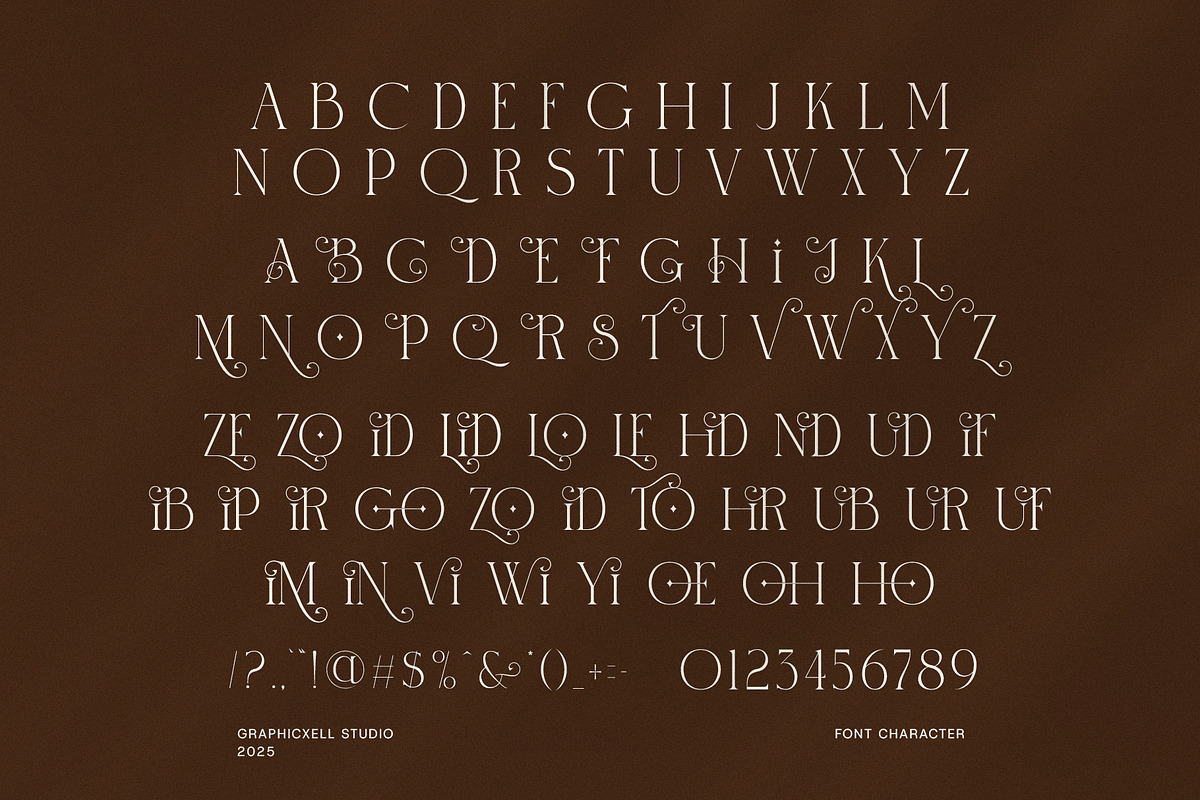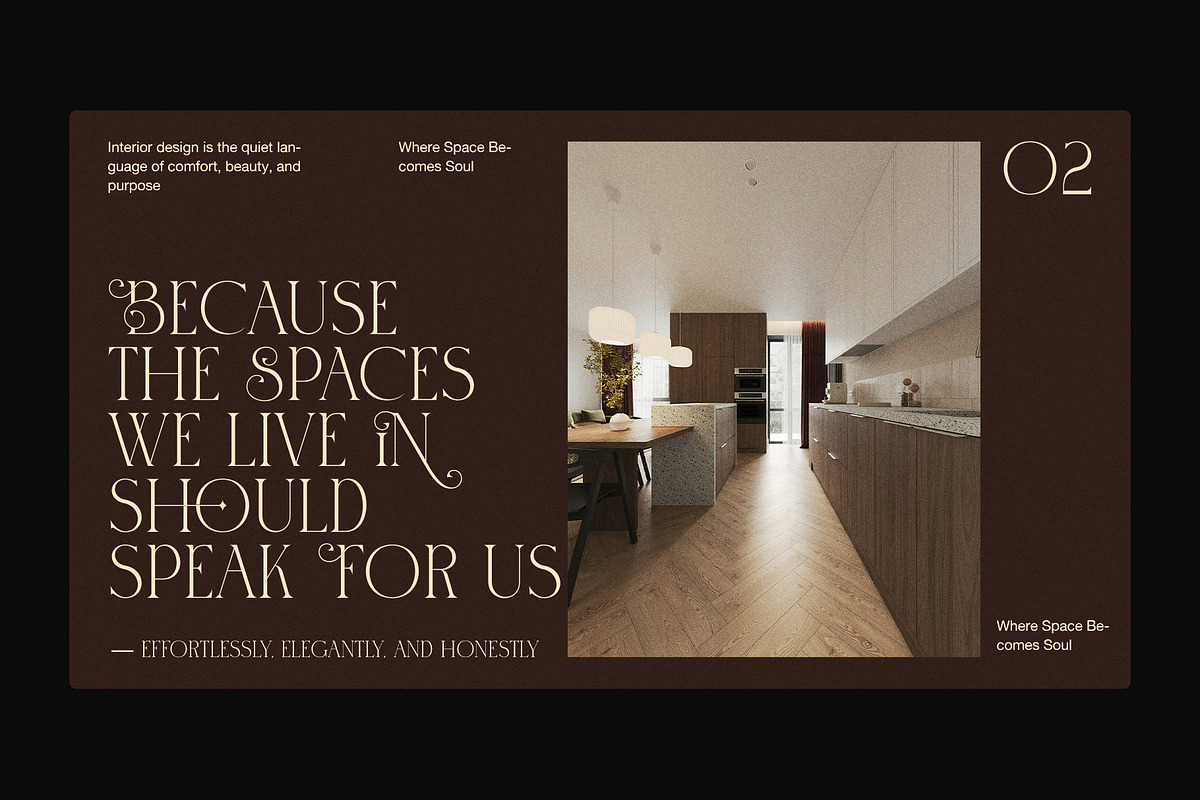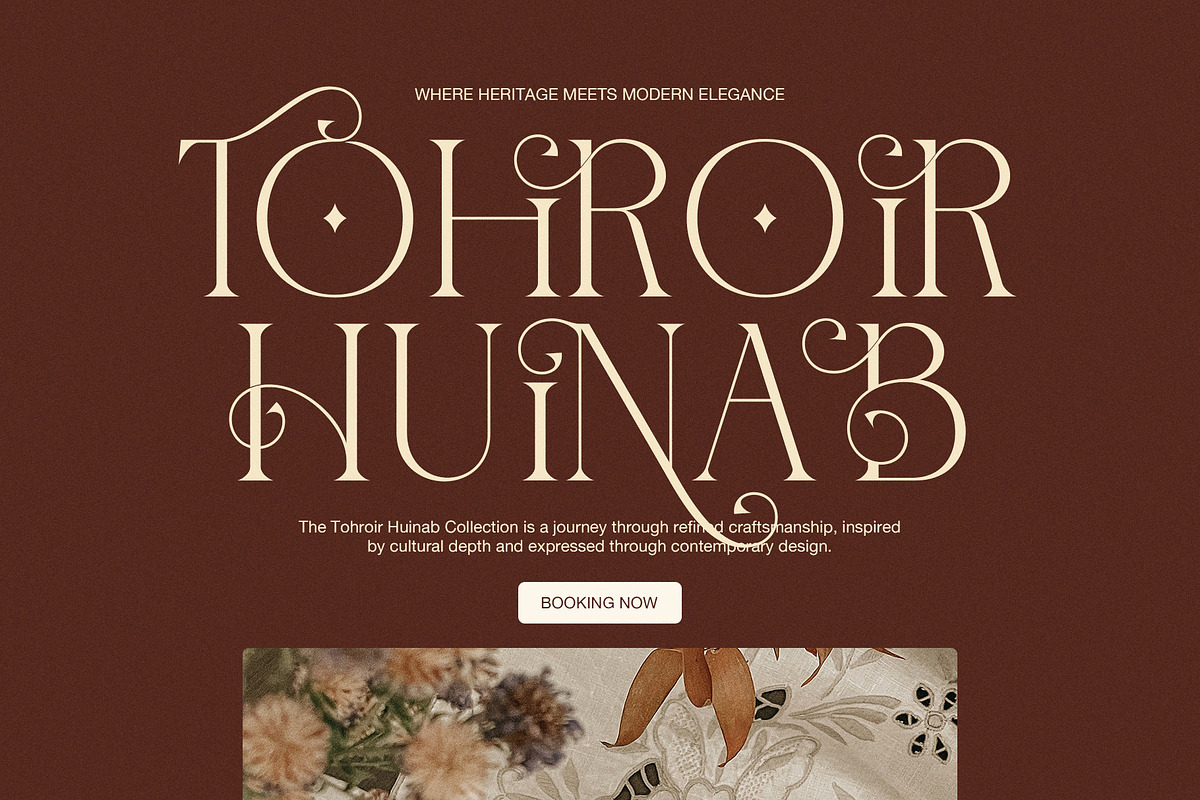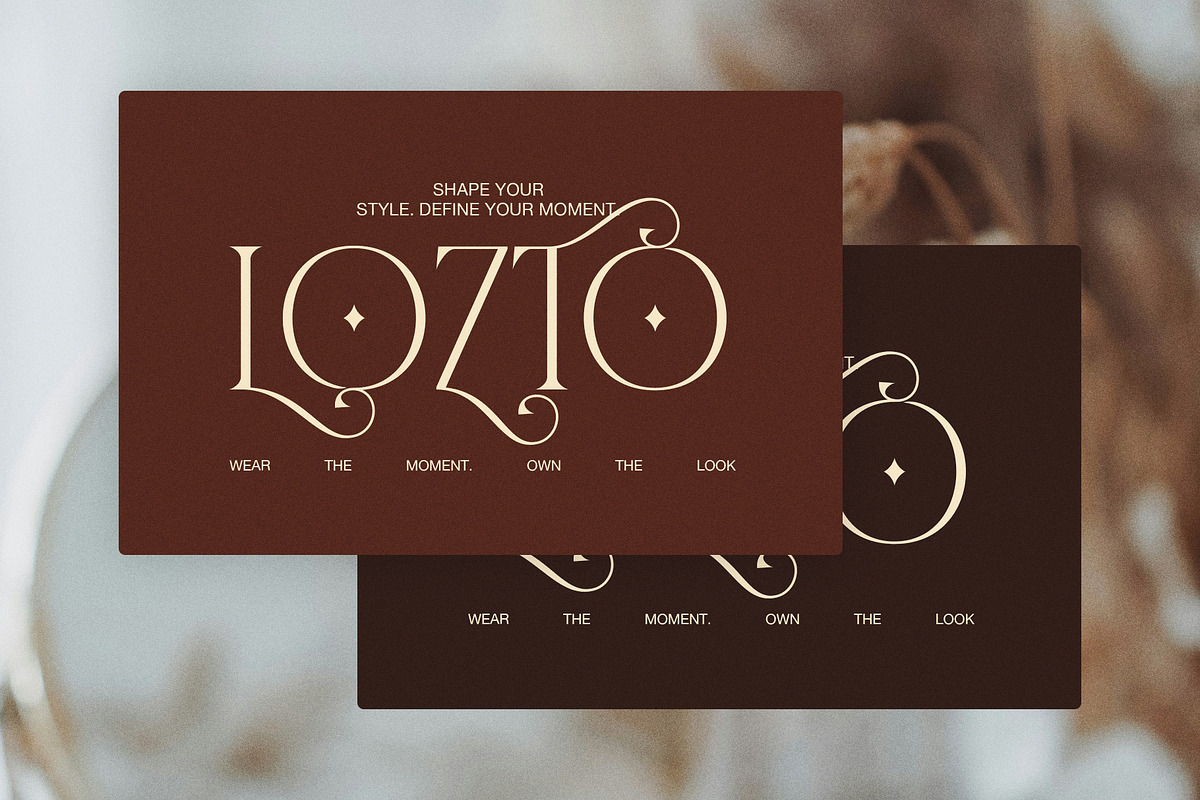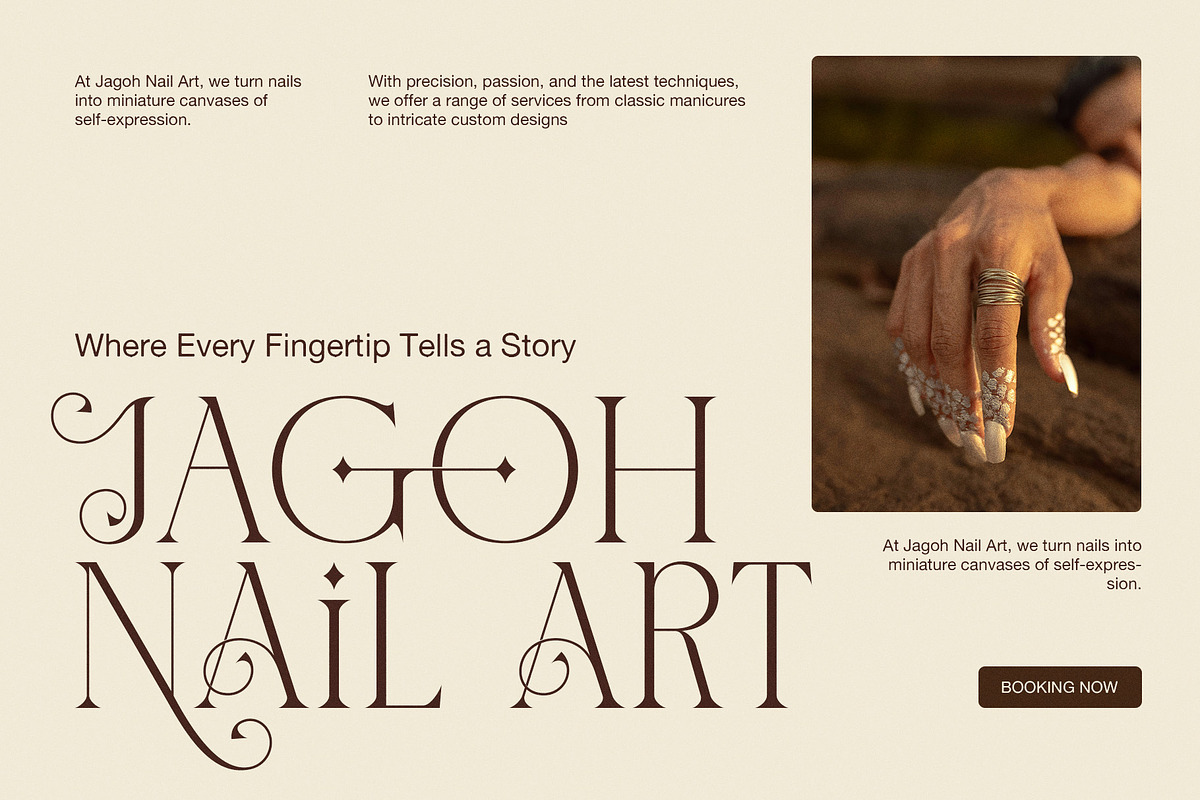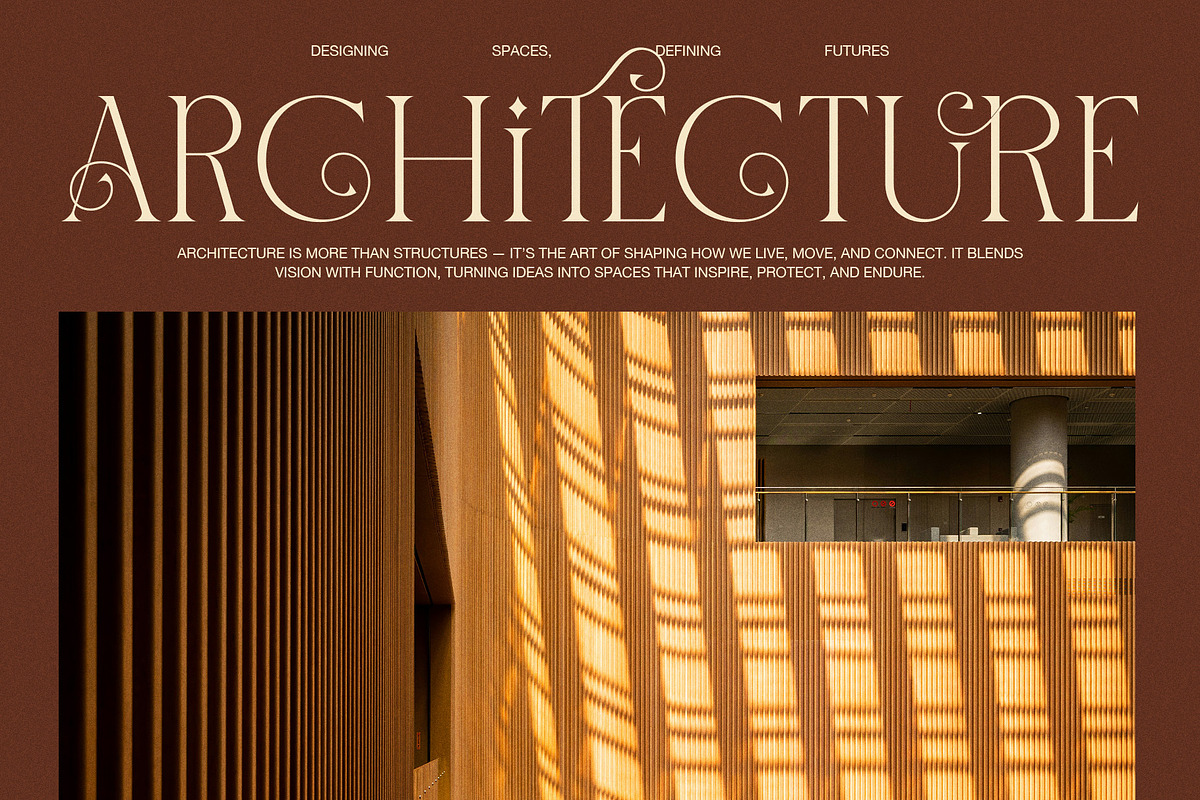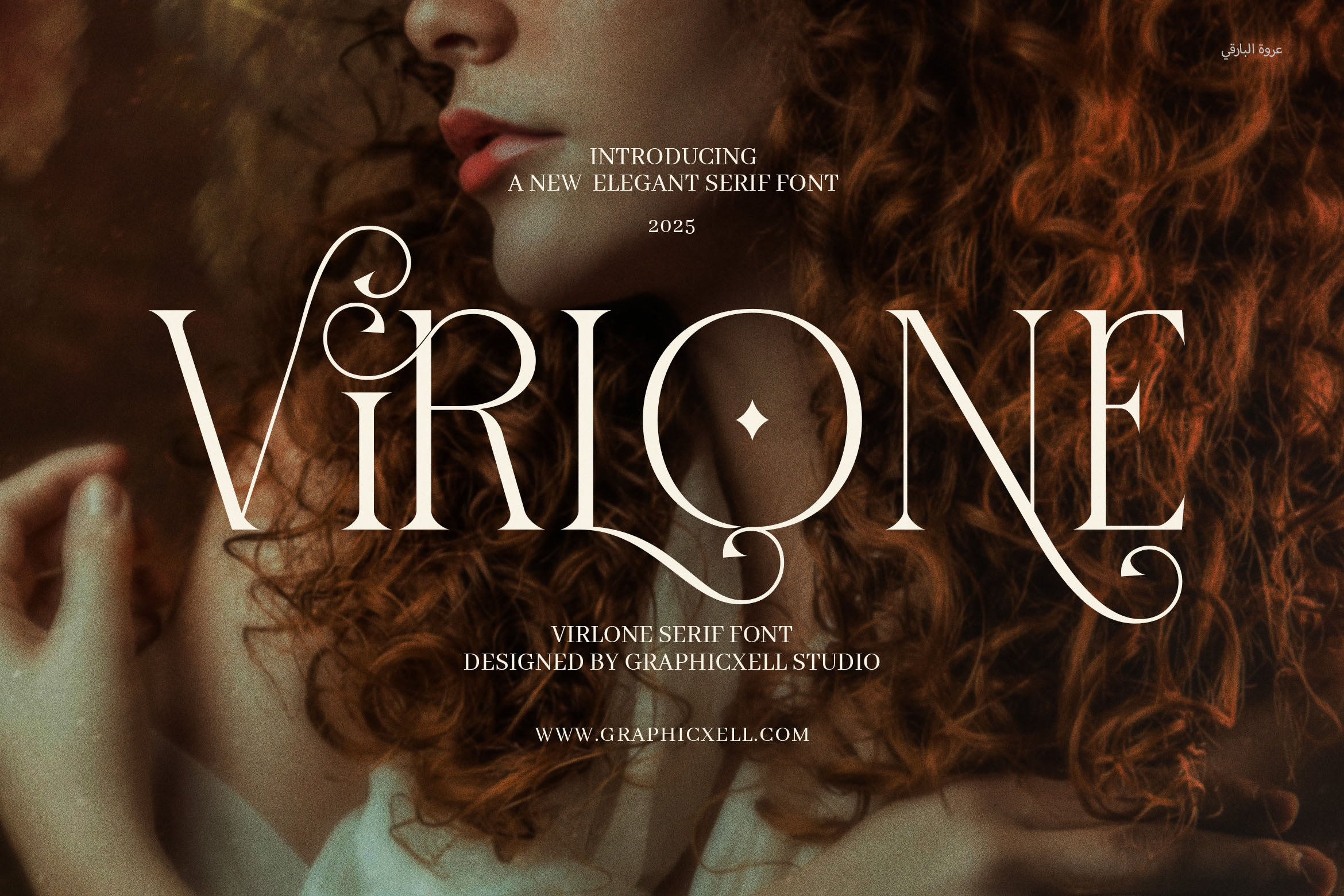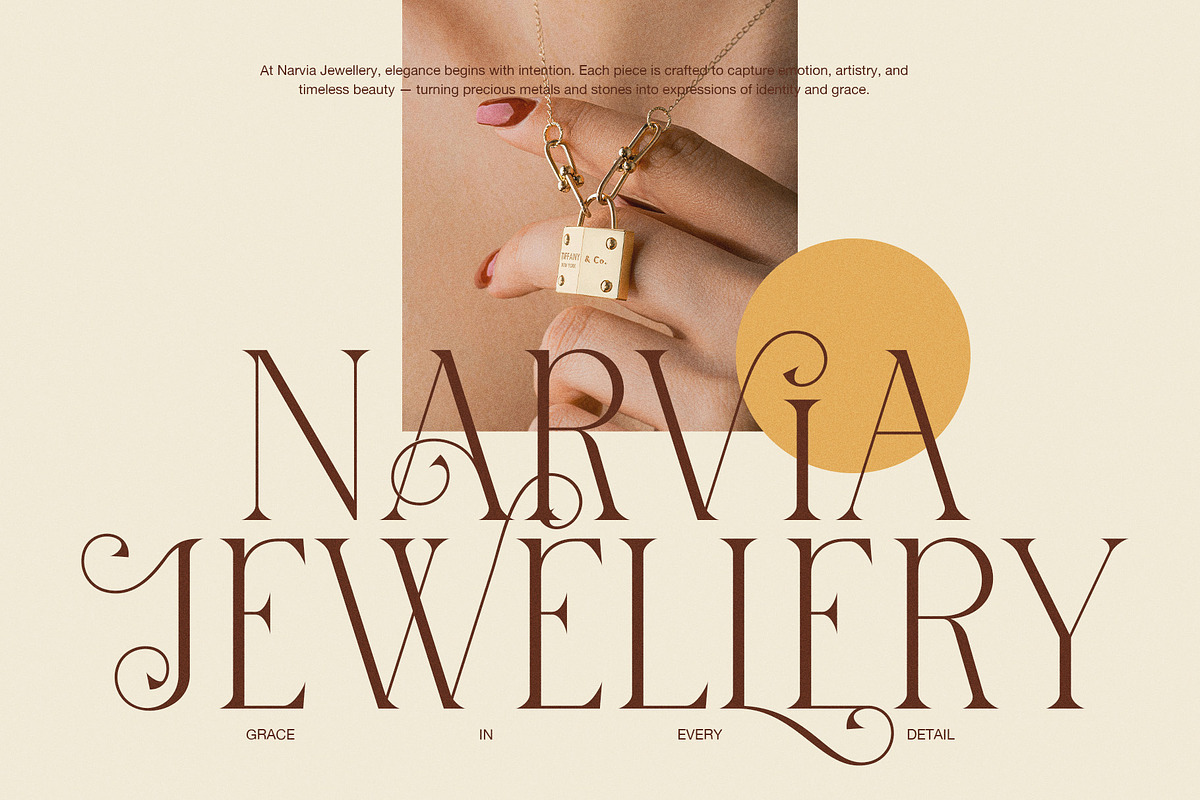
Virlone Elegant Serif Font
Discover the timeless charm of Virlone Elegant Serif Font, a font designed to bring sophistication and strength to every design. With a graceful serif structure and bold styling, Virlone is perfect for those who want their typography to speak with confidence, clarity, and a touch of luxury.
Crafted with clean lines and proportional letterforms, Virlone offers a perfect balance between tradition and modern flair. Its slightly thick strokes make it ideal for designs that need presence and elegance—without sacrificing readability.
This versatile serif font is enhanced with thoughtful ligatures, giving your text a refined and cohesive appearance. Whether you’re working on digital content or print materials, Virlone adapts beautifully to your creative needs.
Key Features of Virlone Elegant Serif Font:
Elegant serif style: Brings a luxurious and professional look to any layout
Bold yet balanced: Perfect for strong headlines or stylish branding projects
Highly readable: Maintains clarity across all sizes, from logos to body text
Functional ligatures: Enhances visual flow and adds design personality
Versatile application: Ideal for branding, packaging, fashion, websites, and magazines
Easy to pair: Complements script or sans-serif fonts for beautiful font combinations
Use Virlone to elevate product packaging, design stunning logo concepts, or give your website an editorial-style finish. It’s especially well-suited for businesses in fashion, beauty, food, lifestyle, and boutique industries.
In addition, its elegant design ensures it looks flawless on social media graphics, invitations, business cards, and printed brochures. From bold branding to stylish minimalist layouts, this font fits seamlessly into any creative direction.
So if you're looking for a serif font that offers both elegance and strength, Virlone Elegant Serif Font is a smart, stylish choice. Bring your design visions to life with a font that captures attention and delivers lasting impact.